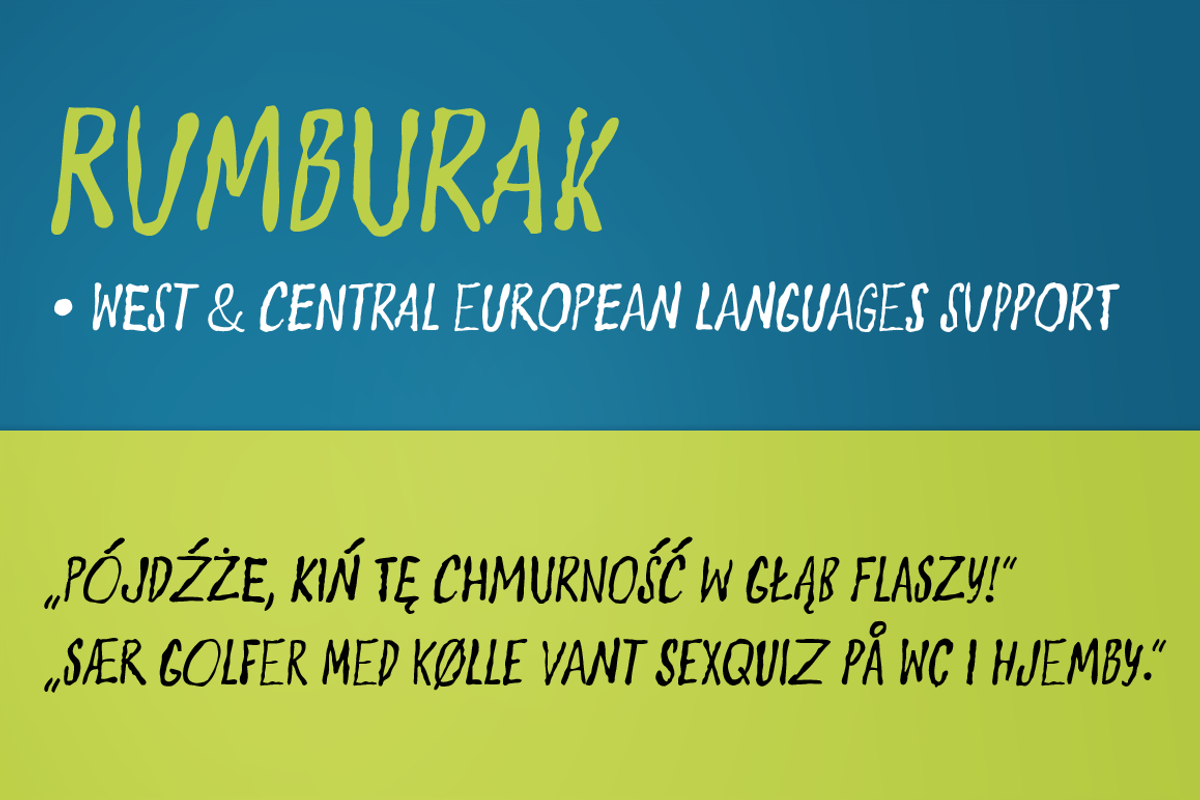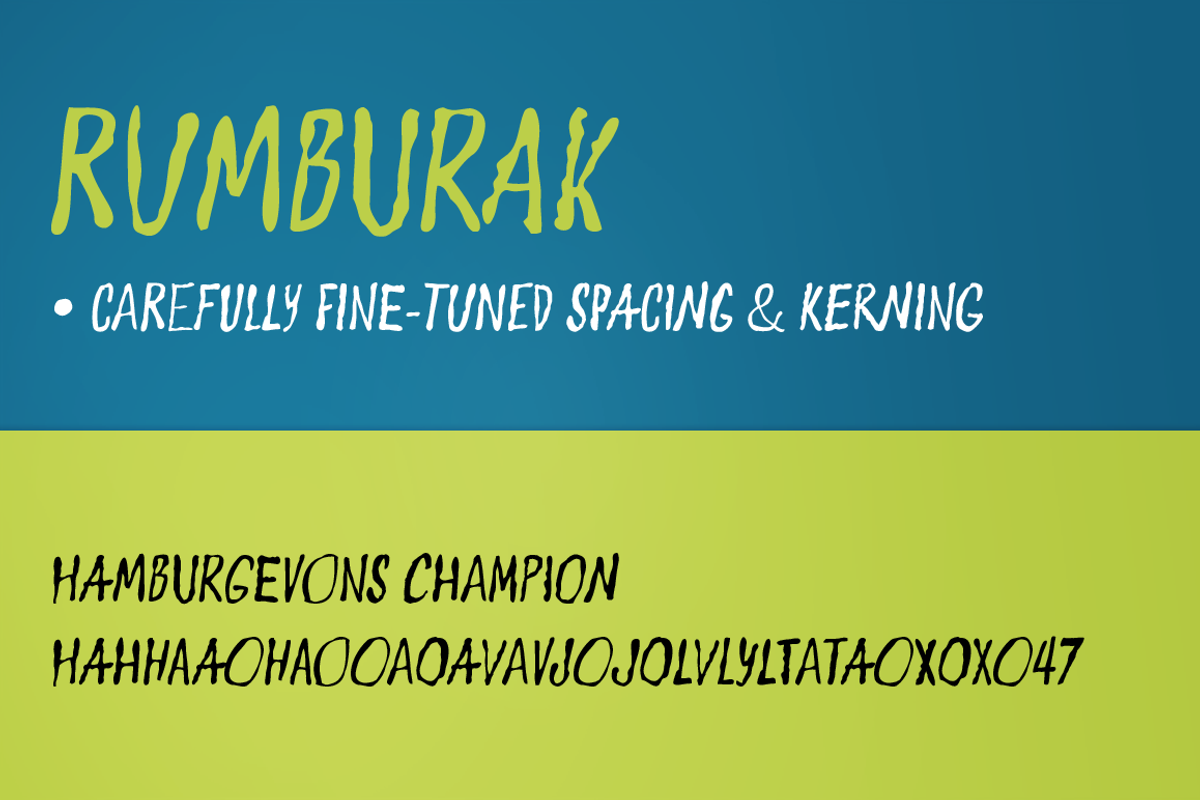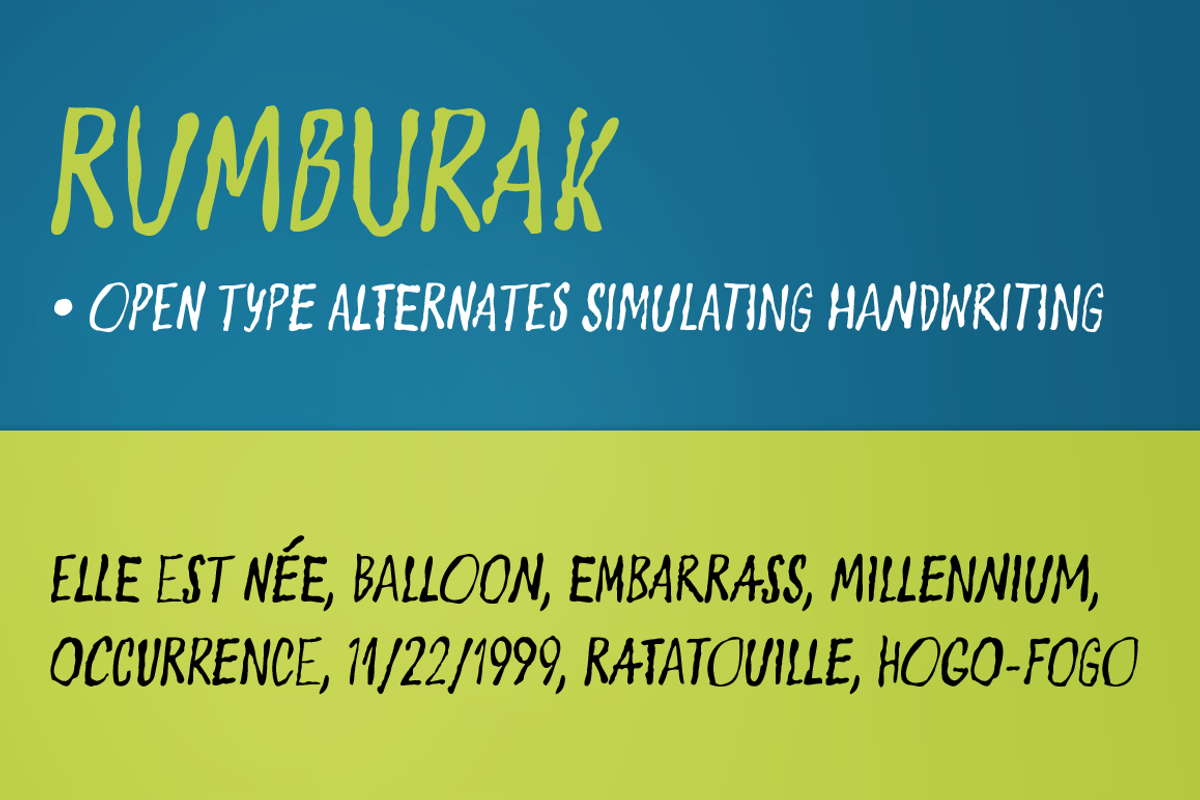
Rumburak Font
Rumburak Font by Juraj Chrastina is a font selected for branding, posters, packaging, typography.
- The spacing and kerning were carefully fine-tuned by Igino Marini and the kerning table contains kerning pairs for use with the random featu
- The font includes multi-language support.
- The spacing and kerning were carefully fine-tuned by Igino Marini and the kerning table contains kerning pairs for use with the random featu
- The font includes multi-language support.
- With its irregularity and numerous alternates, Rumburak simulates live handwriting.
- When the font is used in OpenType-savvy applications, the 4 variants of glyphs are automatically alternated to achieve a random-like effect.
- The spacing and kerning were carefully fine-tuned by Igino Marini and the kerning table contains kerning pairs for use with the random featu
Why Rumburak Font is worth a look
Rumburak Font by Juraj Chrastina fits naturally into Branding, posters, packaging, typography.